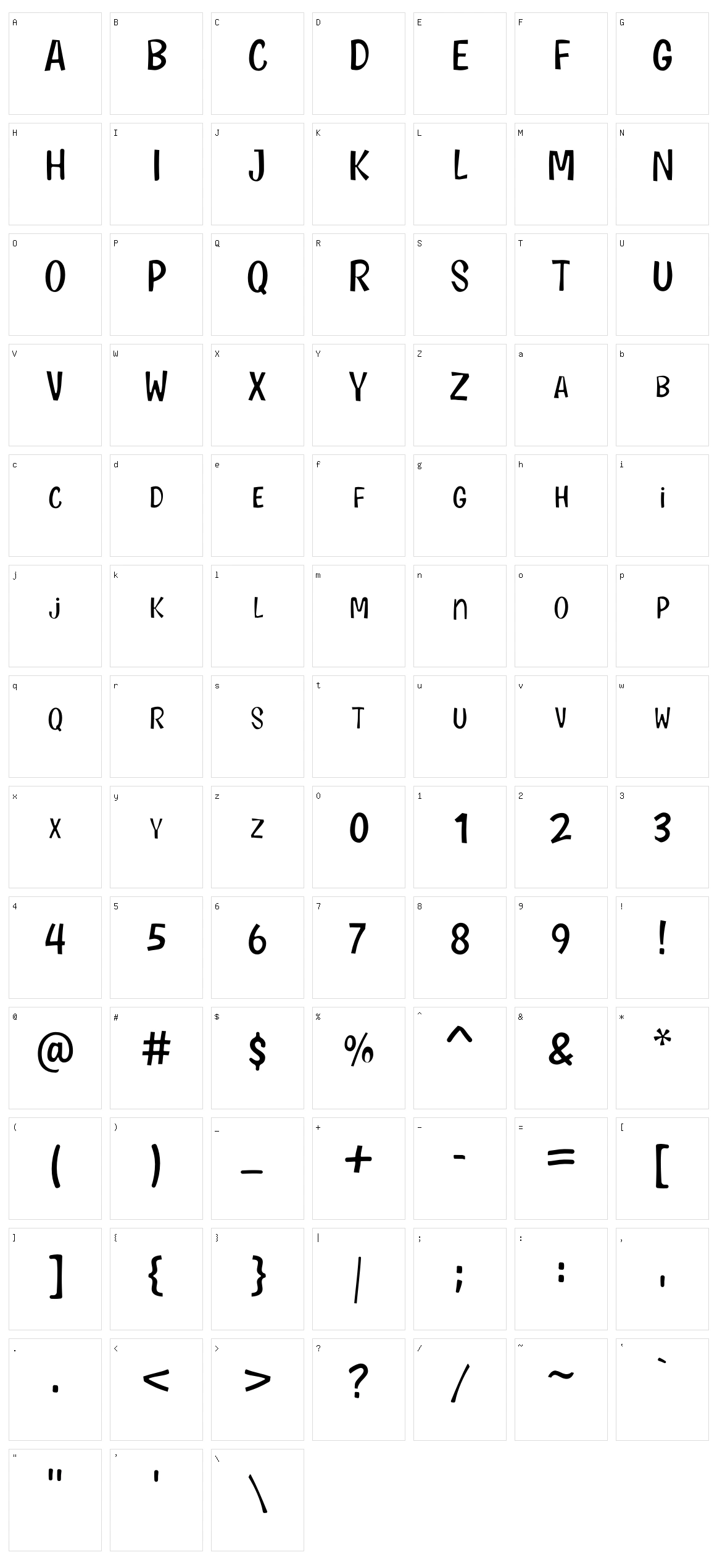
The free font Cartoon Academy is carefully designed by NYA Letter, showcasing a thoughtful balance of creativity and usability and falls under the Cartoon font style. When you download the ZIP file, it contains only 39.36 KB of font files, making it lightweight and quick to download. Please review the license details below to understand permitted usage and distribution rights. If license information is not available, we recommend using this font for personal projects only or contacting the author directly for commercial usage permissions.